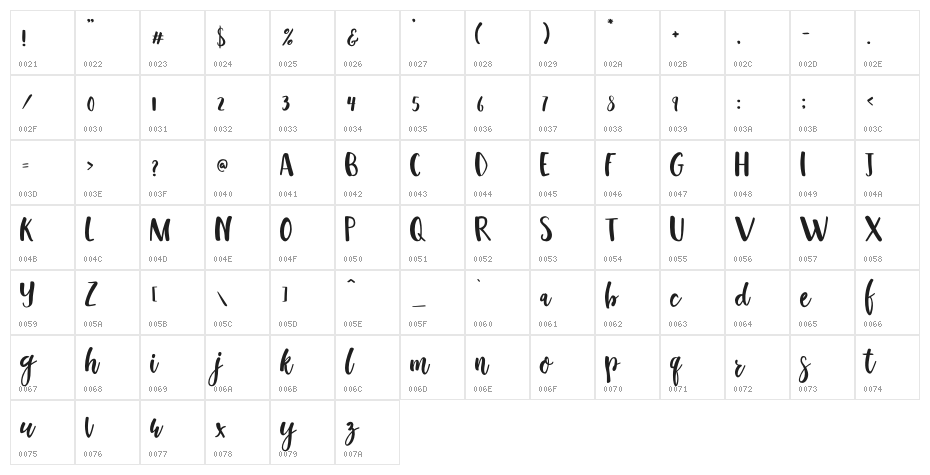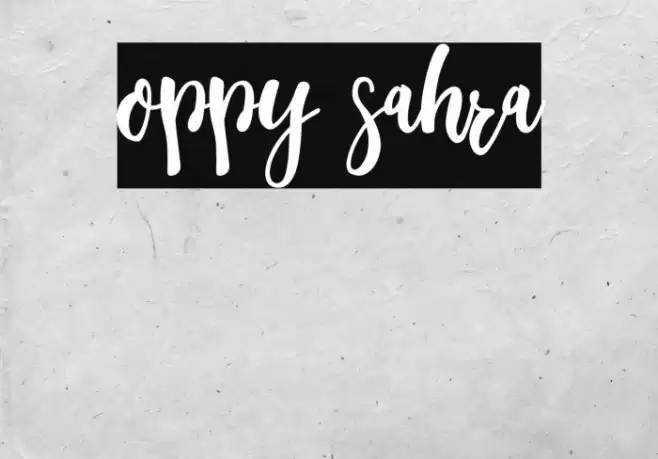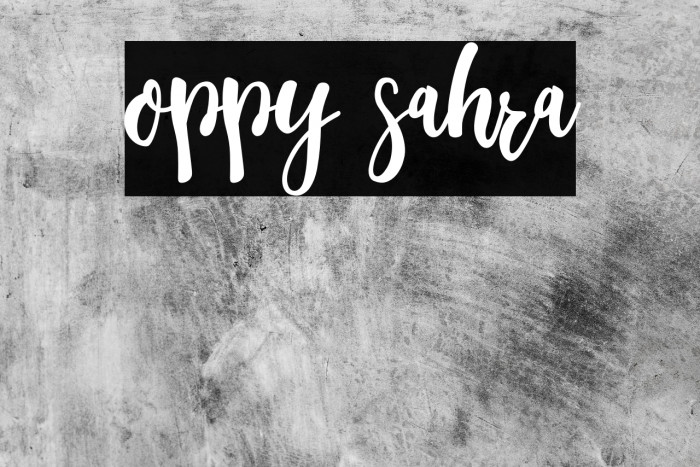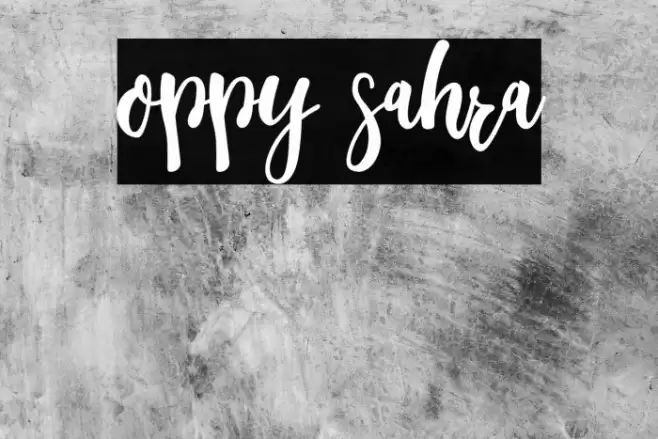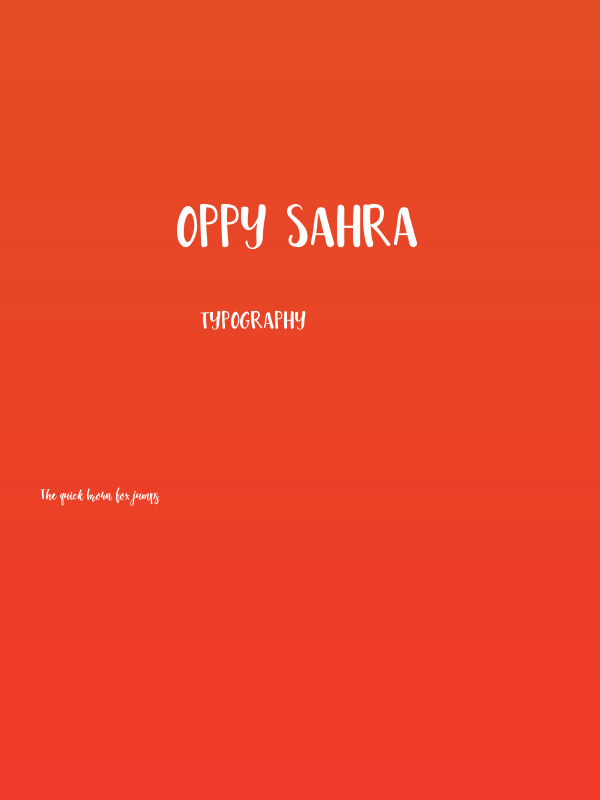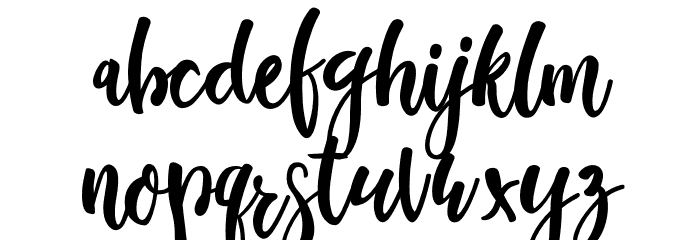
oppy sahra Font
oppy sahra Description
This font features a playful and energetic script style, characterized by its bold and flowing letterforms. The uppercase letters are tall and slightly narrow, with a consistent stroke width that gives them a strong presence. The lowercase letters are more fluid and connected, with elegant curves and loops that add a sense of movement and dynamism. The numbers and special characters maintain the same lively aesthetic, ensuring a cohesive look across all text. This font's unique style makes it ideal for creative and informal applications, where a touch of personality and flair is desired.
| Proposed Projects | Ideal for greeting cards, invitations, branding, and social media graphics. |